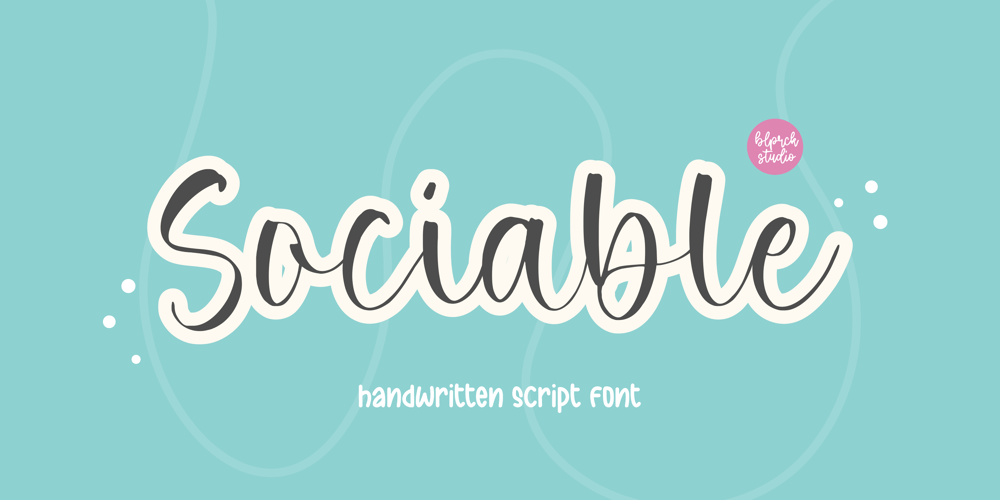
Sociable Font Family was designed by Restu Angga and published by Balpirick. Sociable contains 1 styles and family package options. Sociable is a Handwritten Script Font.Whether you’re using it for crafts, digital design, presentations, or making greeting cards, this font has the potential to become your favorite go-to font, no matter the occasion! – also multilingual supportEnjoy the font! Feel free to comment or feedback!Thank you!